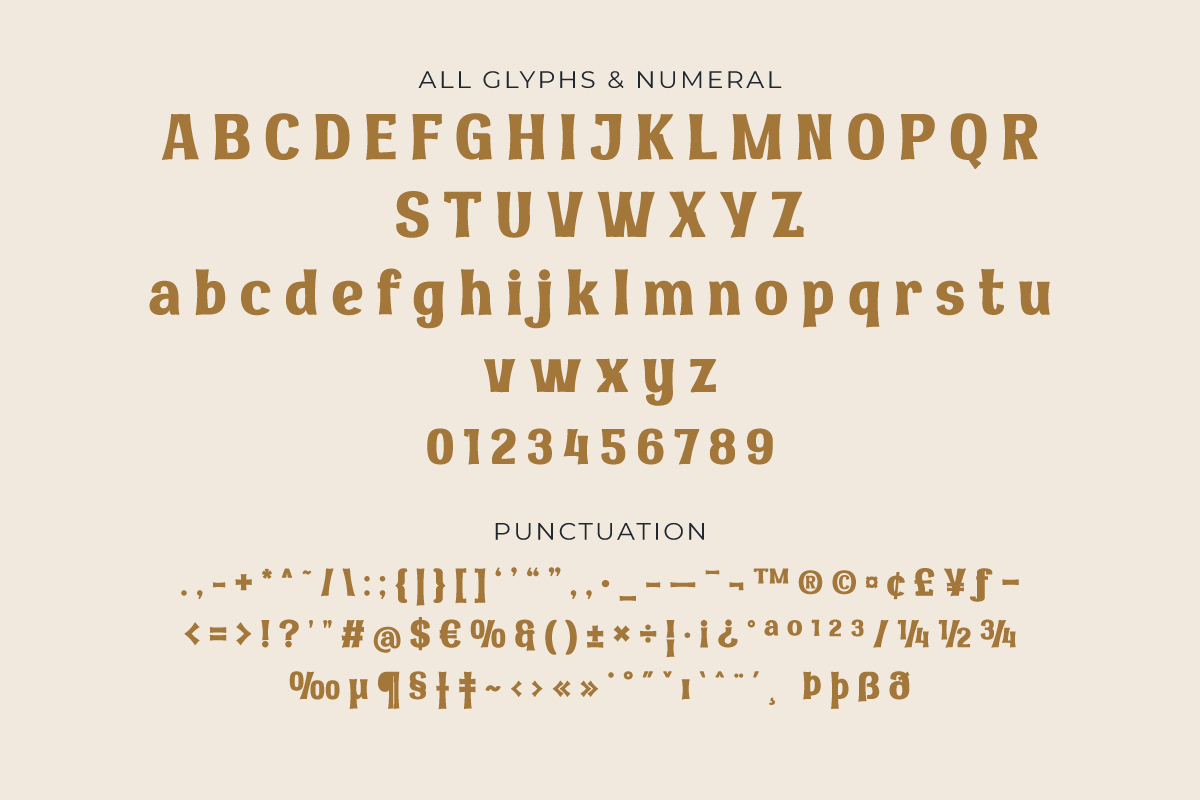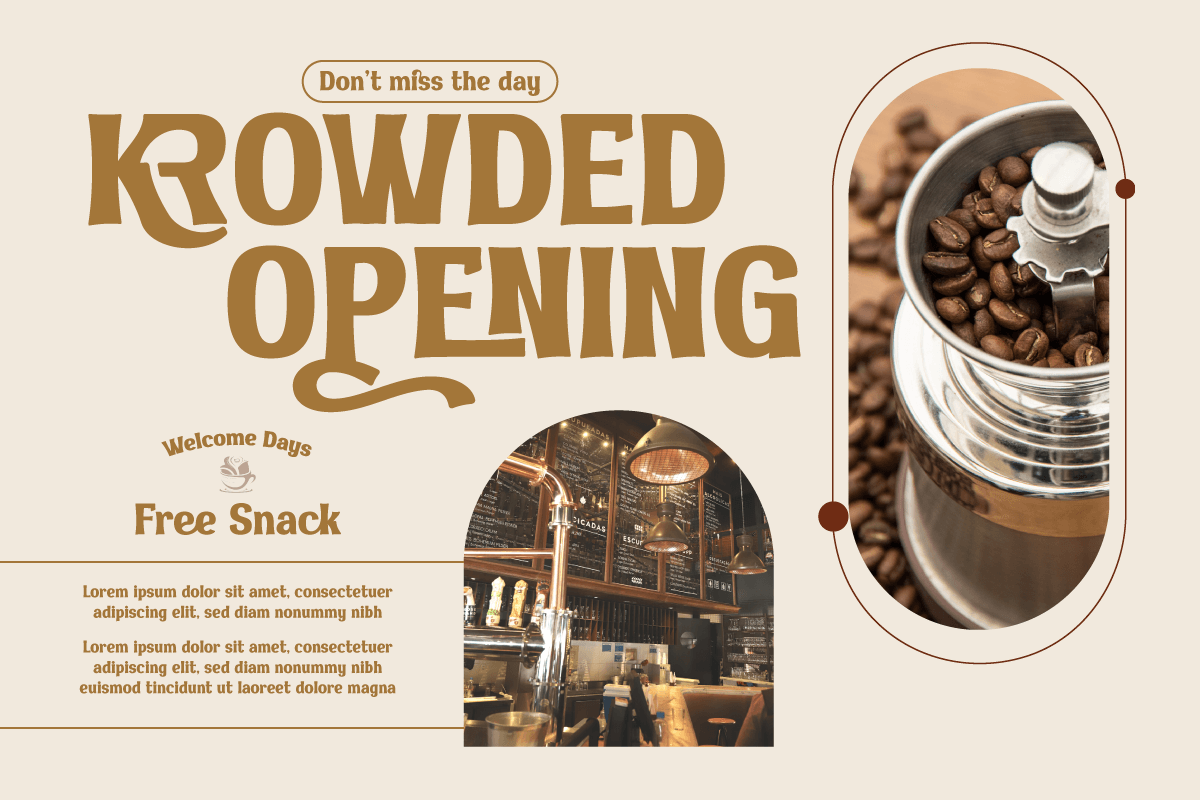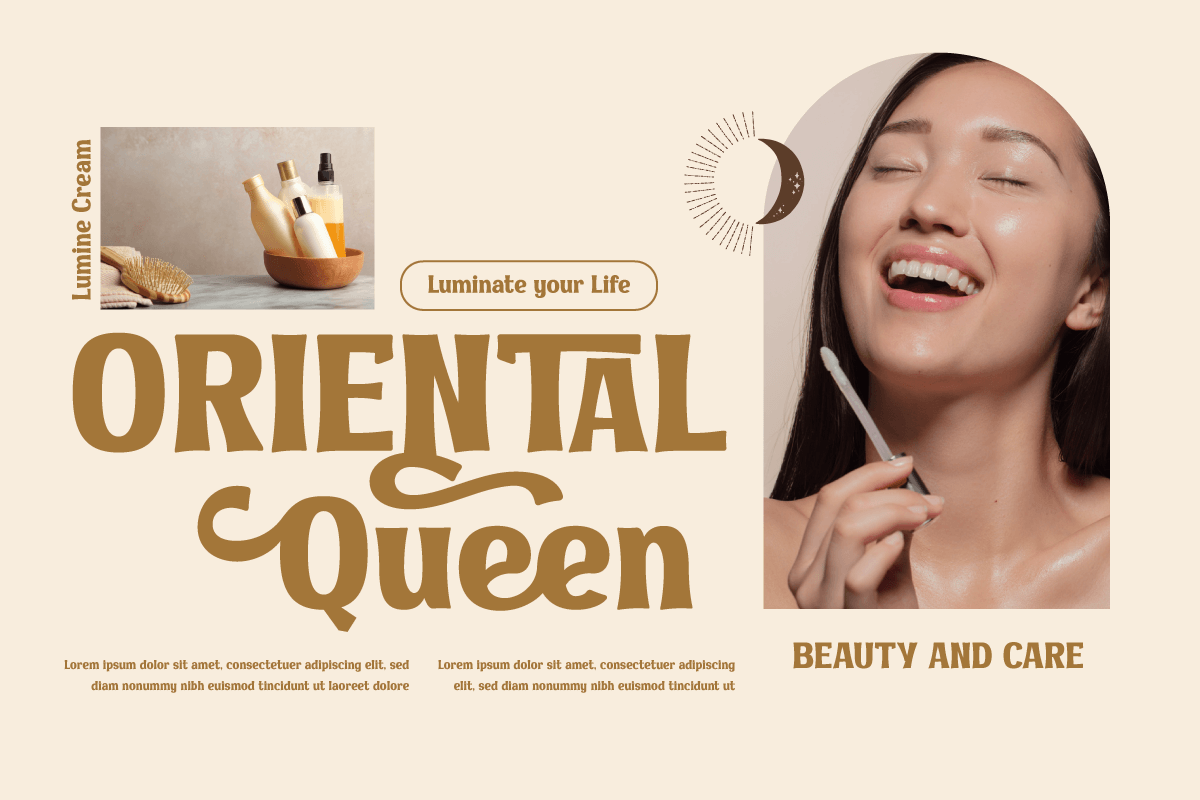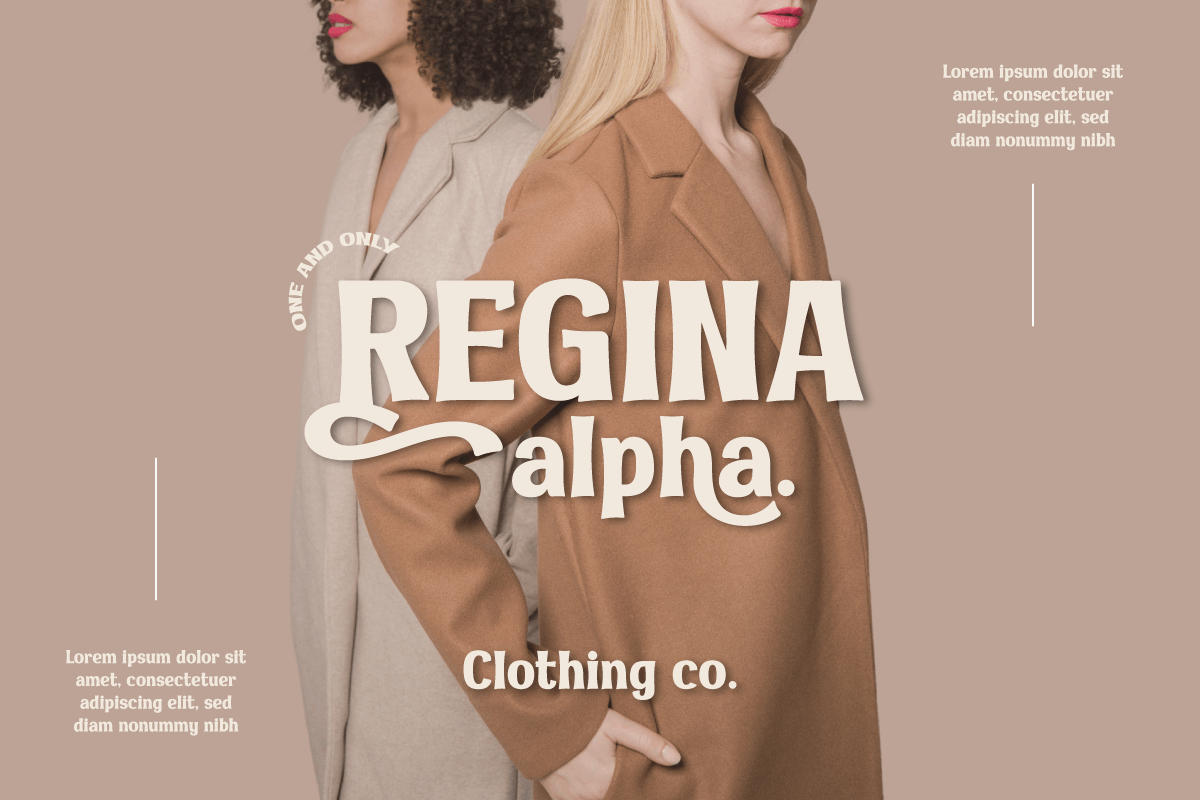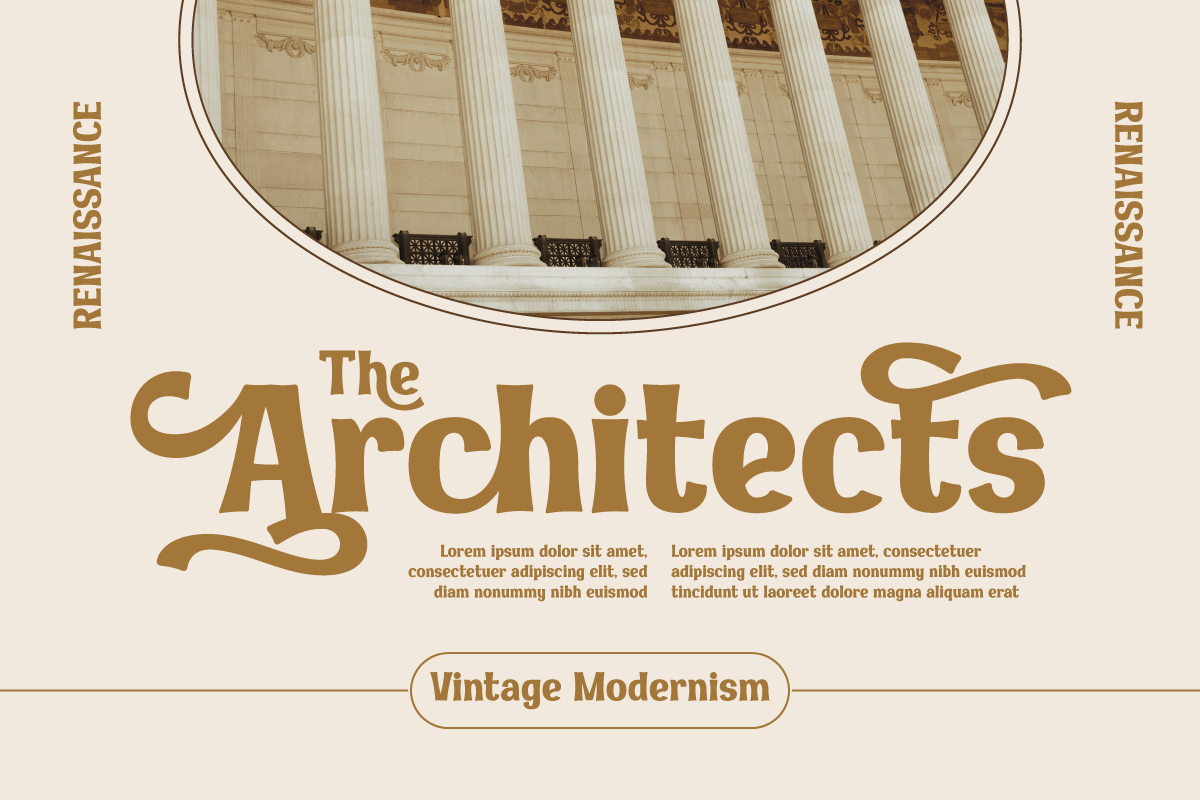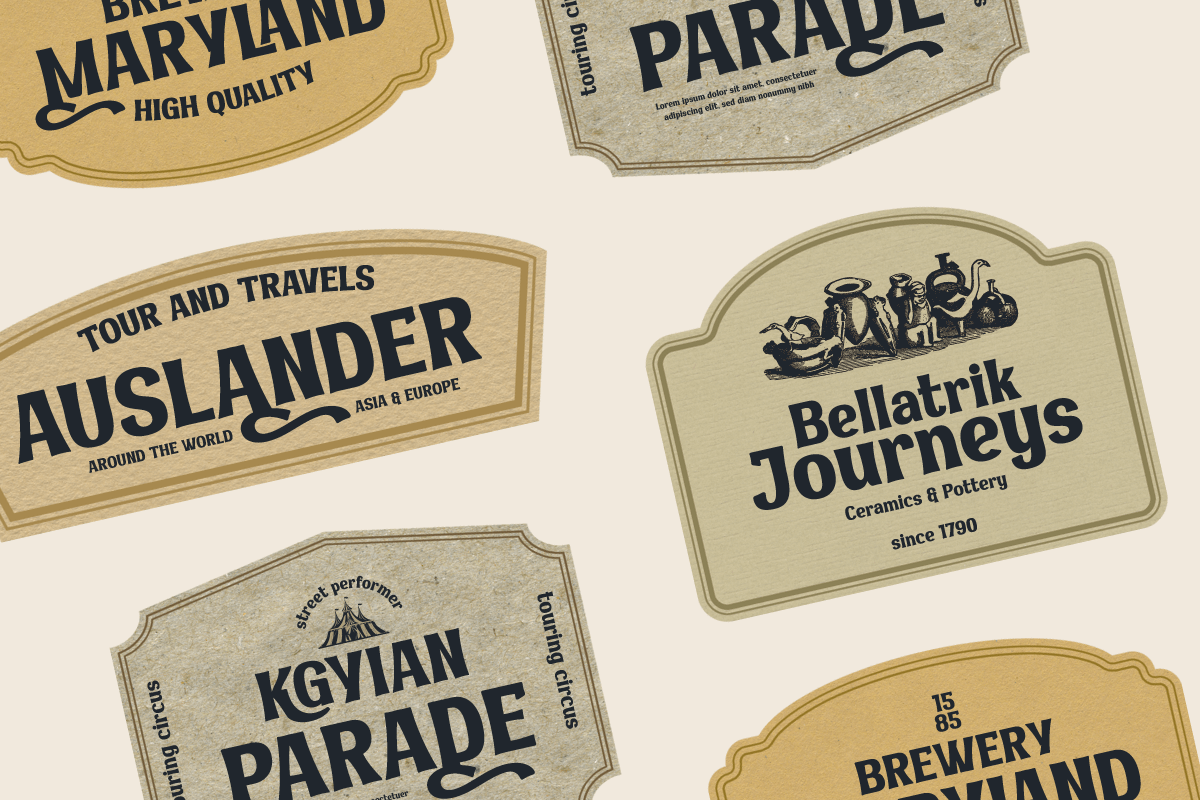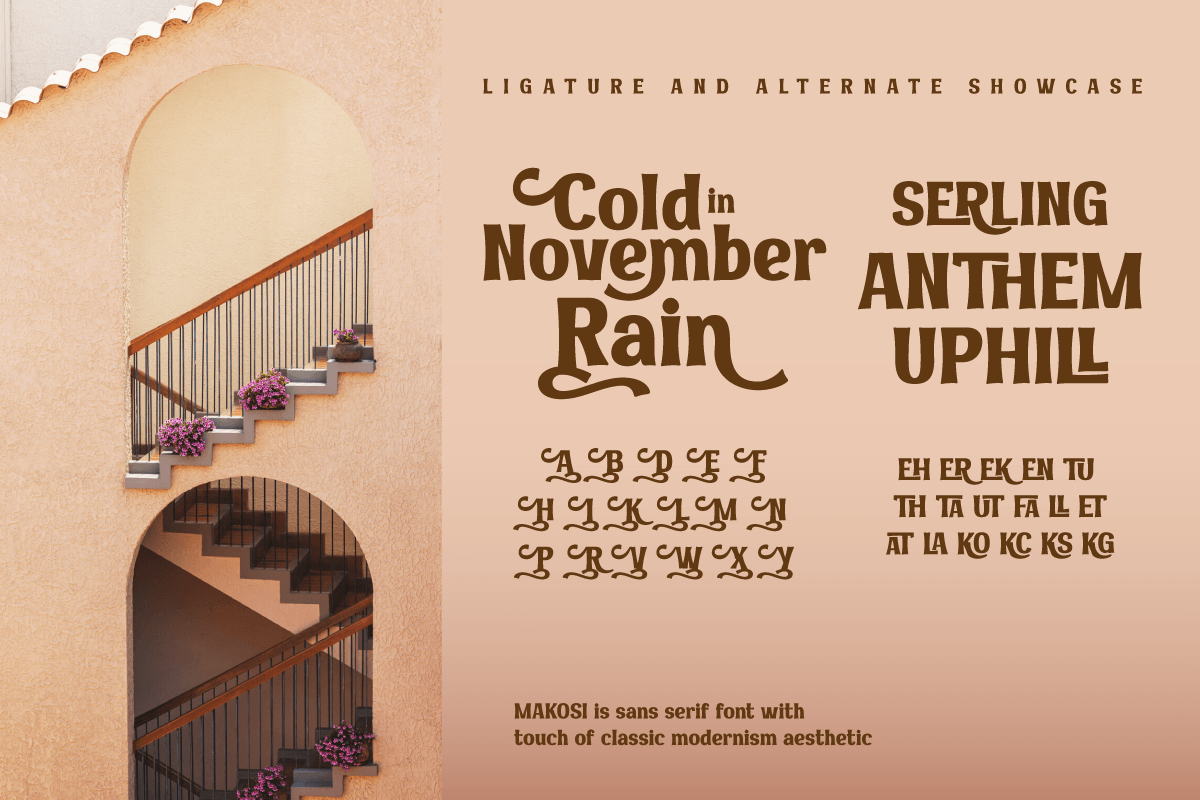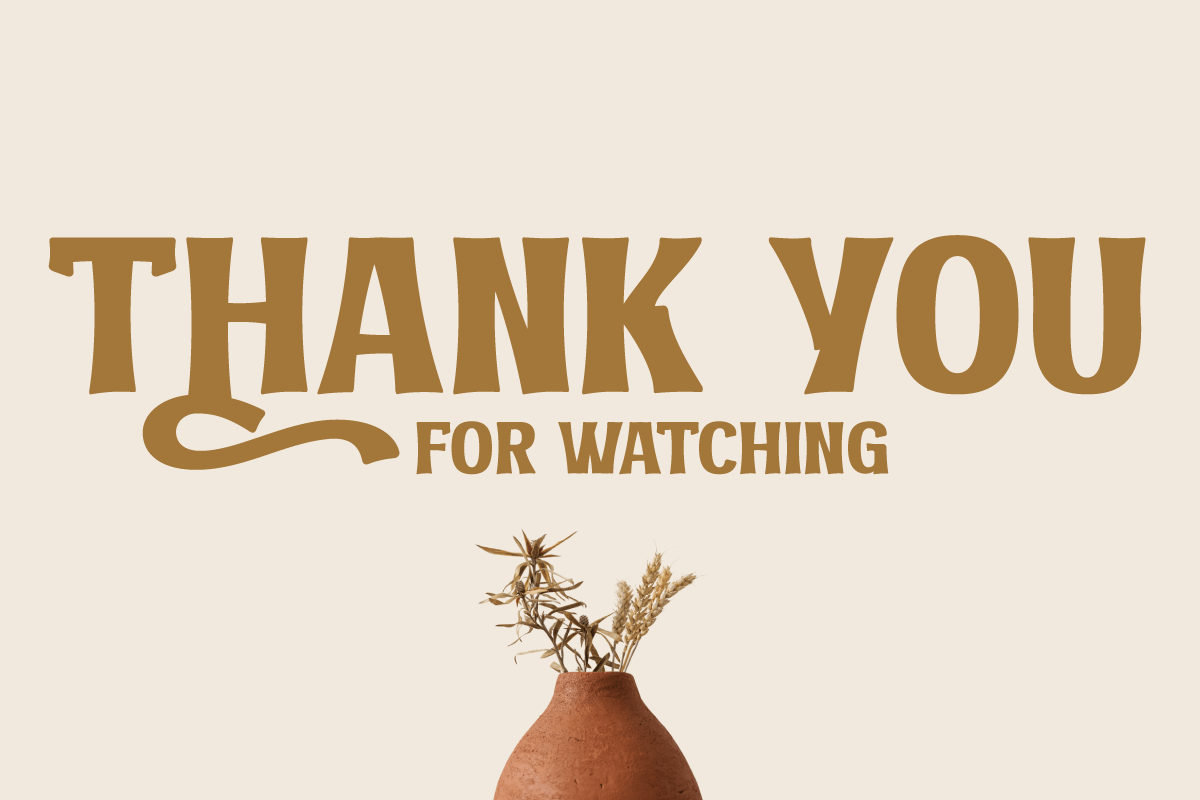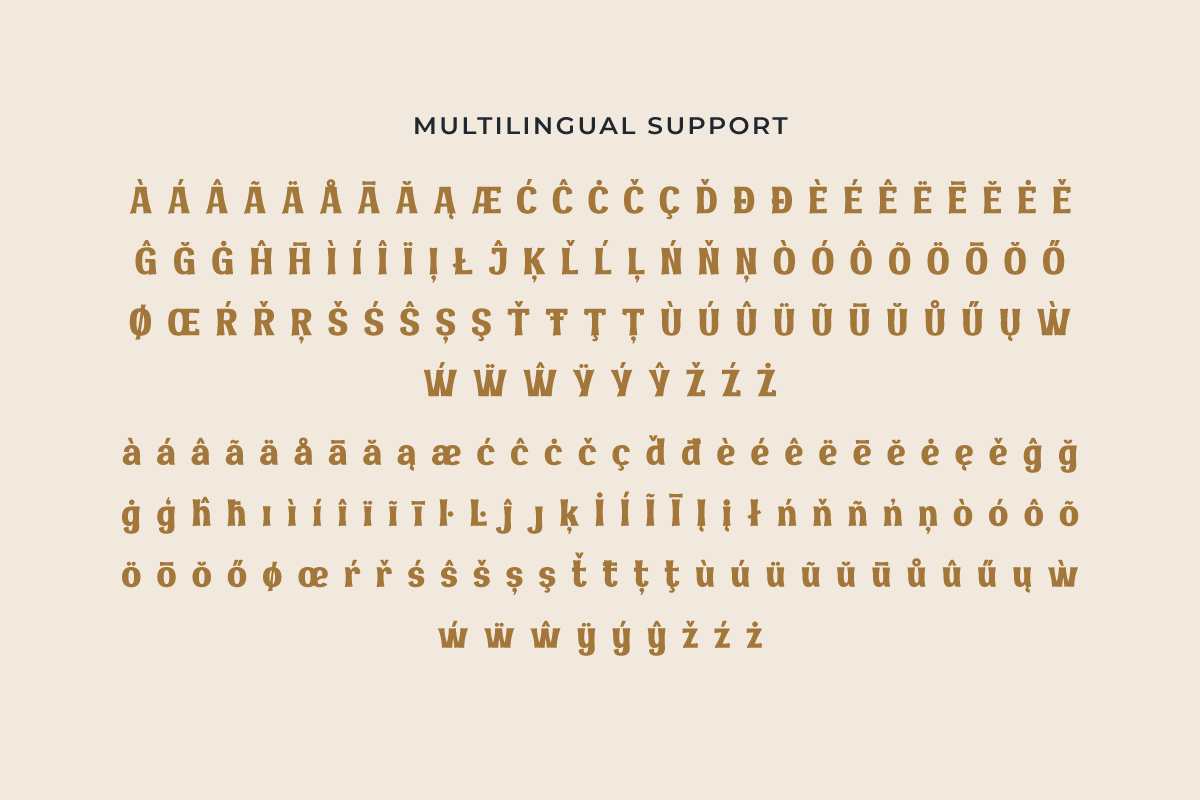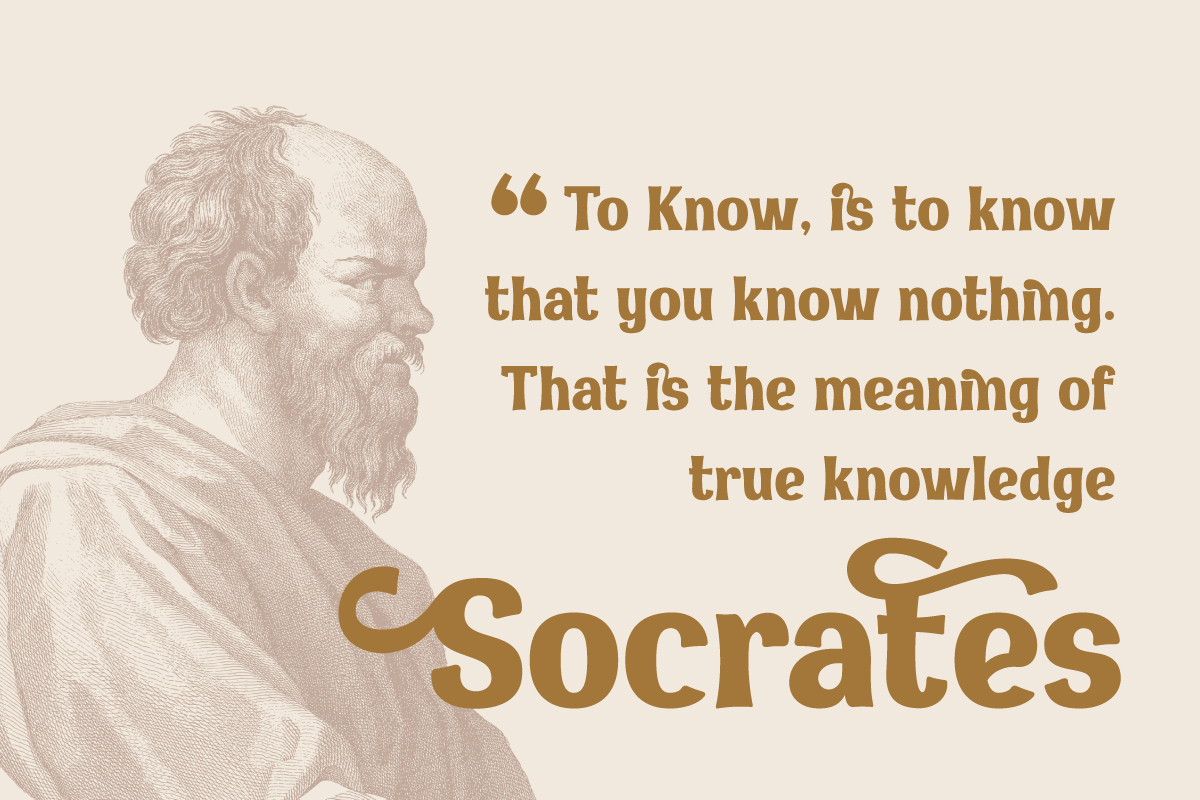
MAKOSI | Serif Classic Modernism
Makosi is a traditional serif typeface that is ideal for classic or retro modernist applications. With a graceful and elegant design, this typeface adds a distinctive touch to any text composition.
Makosi includes unusual features such as ligatures and alternatives, which provide flexibility and provide intriguing variations in text appearance. As a result, you’ll be able to effortlessly adjust the style and feel you want for each of your creative projects. Furthermore, Makosi is multilingual, allowing you to utilize this typeface in a variety of languages all around the world. You may reach a worldwide audience while also providing a consistent and appealing visual experience.
You will develop an eye-catching design with a distinctive classic touch if you use Makosi as the main font for your project. Join Makosi and give your distinctive typography a new depth.
Alternate, Ligature